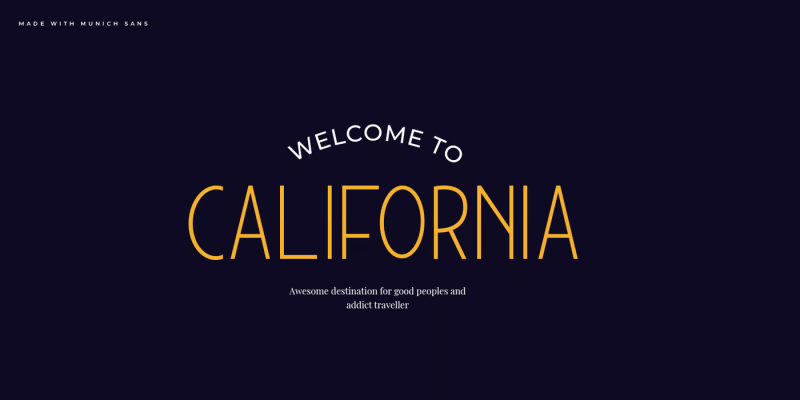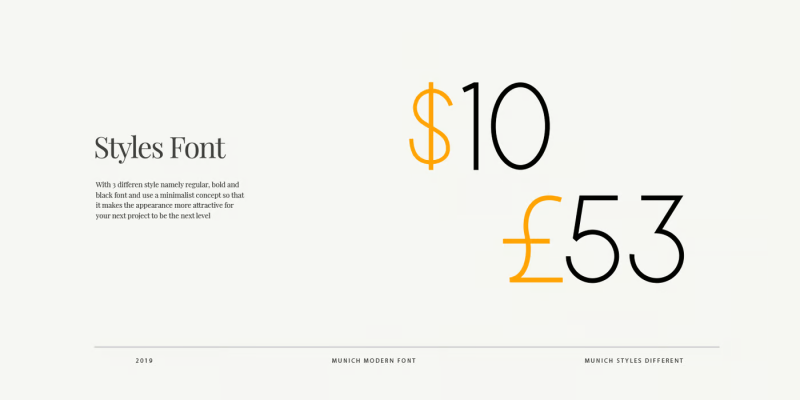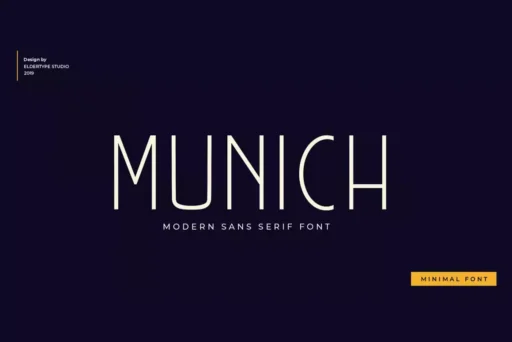
Munich Sans Font
Munich Sans is a professional minimalist sans-serif typeface that fits into contemporary design concepts perfectly. Following the minimalist and geometric design approach, it has straight lines and symmetrical shapes and sizes, which convey sophistication. This flexibility makes it suitable for many uses; you can apply it to create bold headlines, create unique logos, quote of the day, or even use it with the script font for the contrast effect.
What makes Munich Sans special is that it can give a look of contemporary minimalism while still feeling very now and very then. It doesn’t clutter up the space and rather adds to the professionalism of your work in the process. It doesn’t matter if you are designing a poster, website or developing a brand identity, this font is versatile and can fit into any project.
Also, Munich Sans is localized in multiple languages, which makes it ideal for designers working with an international audience. This feature helps to guarantee the visual coherence of your message across different languages and the different scripts that are used to write them. It’s more than just a font choice; with Munich Sans, you are opting for a tool that enhances your design and ensures that it remains clear and exciting for all.
Munich Sans Font is a Sans Serif Fonts font that brings a professional and versatile look to your projects. Munich Sans is a professional minimalist sans-serif typeface that fits into contemporary design concepts perfectly.